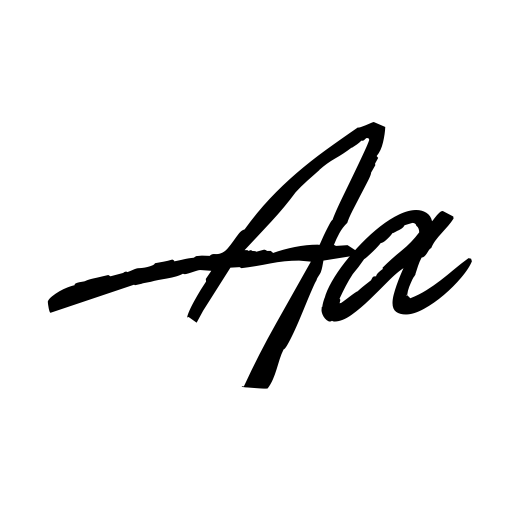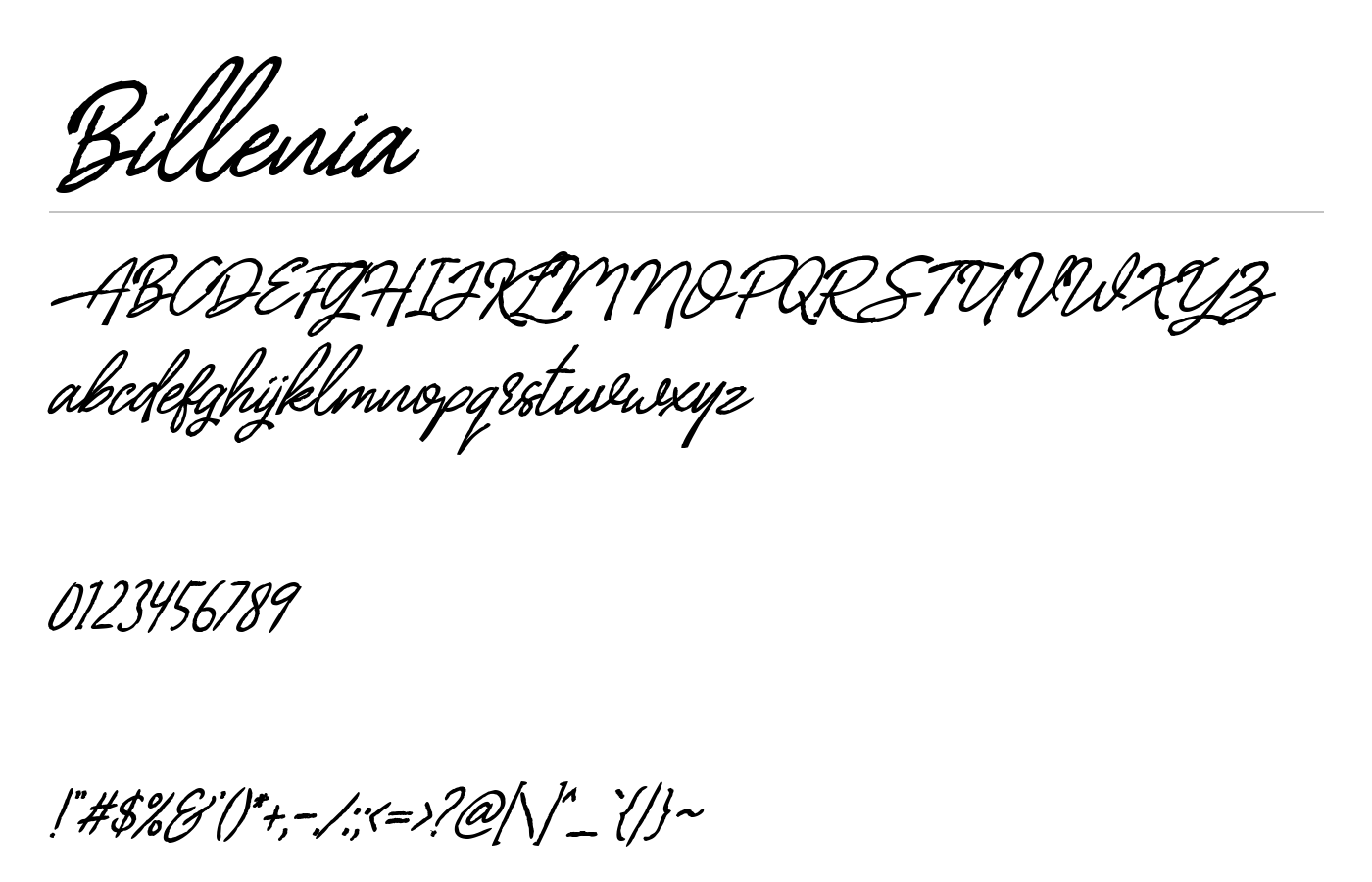
Billenia is a stylish script font with a handwritten feel, featuring smooth, flowing strokes that give it an elegant yet approachable personality. Its thin, slightly condensed letterforms create a sophisticated look, making it ideal for branding, invitations, and logos where a touch of personal charm and grace is desired. This font works well in creative projects that seek to convey warmth, elegance, and a modern sense of style.
Billenia Font
About Billenia Font
| Font family | Billenia Font |
| Designer | Sarid Ezra |